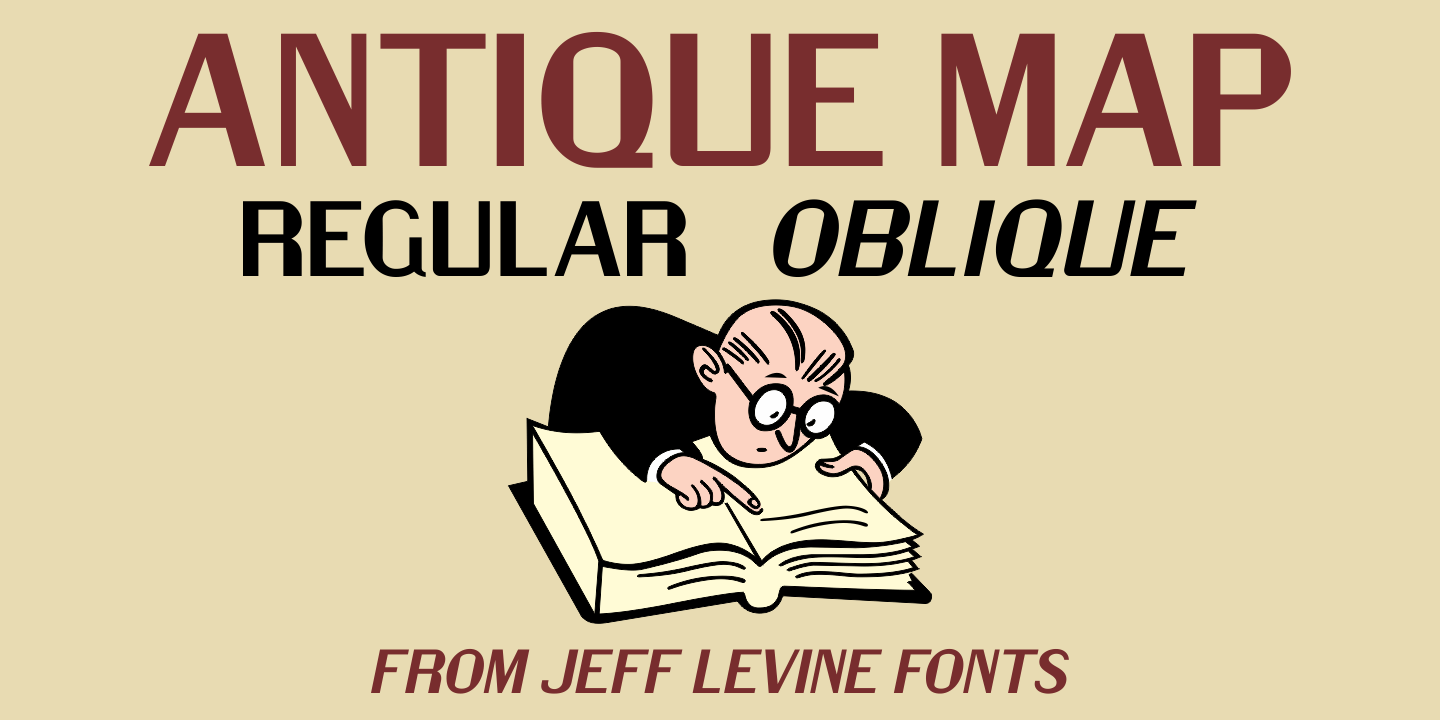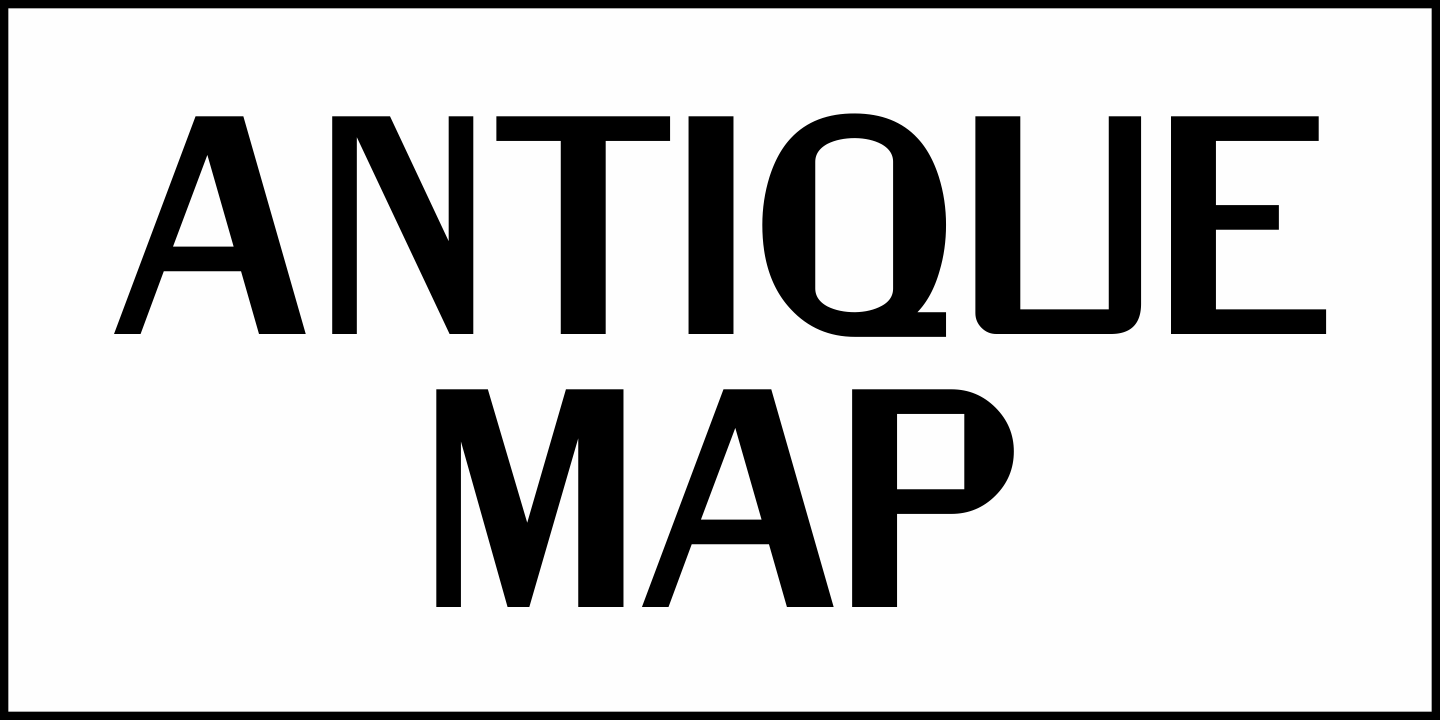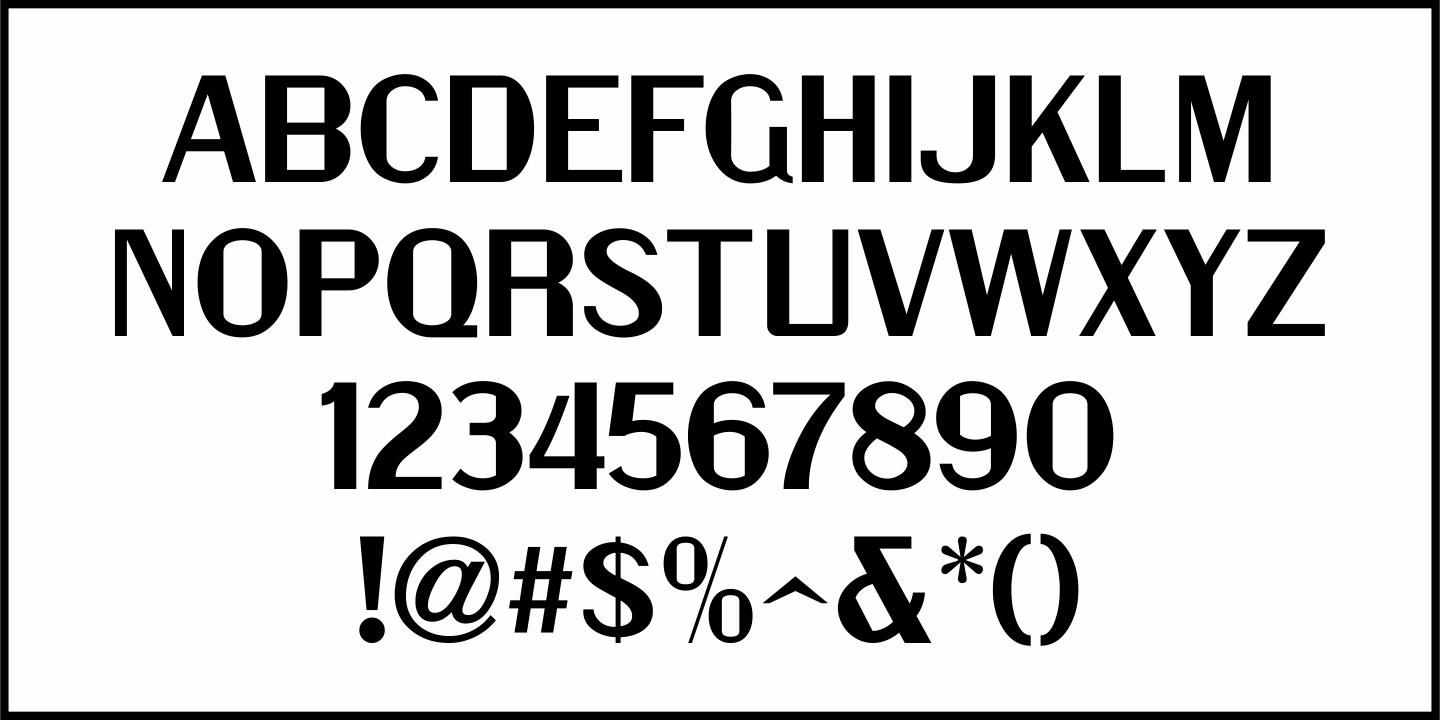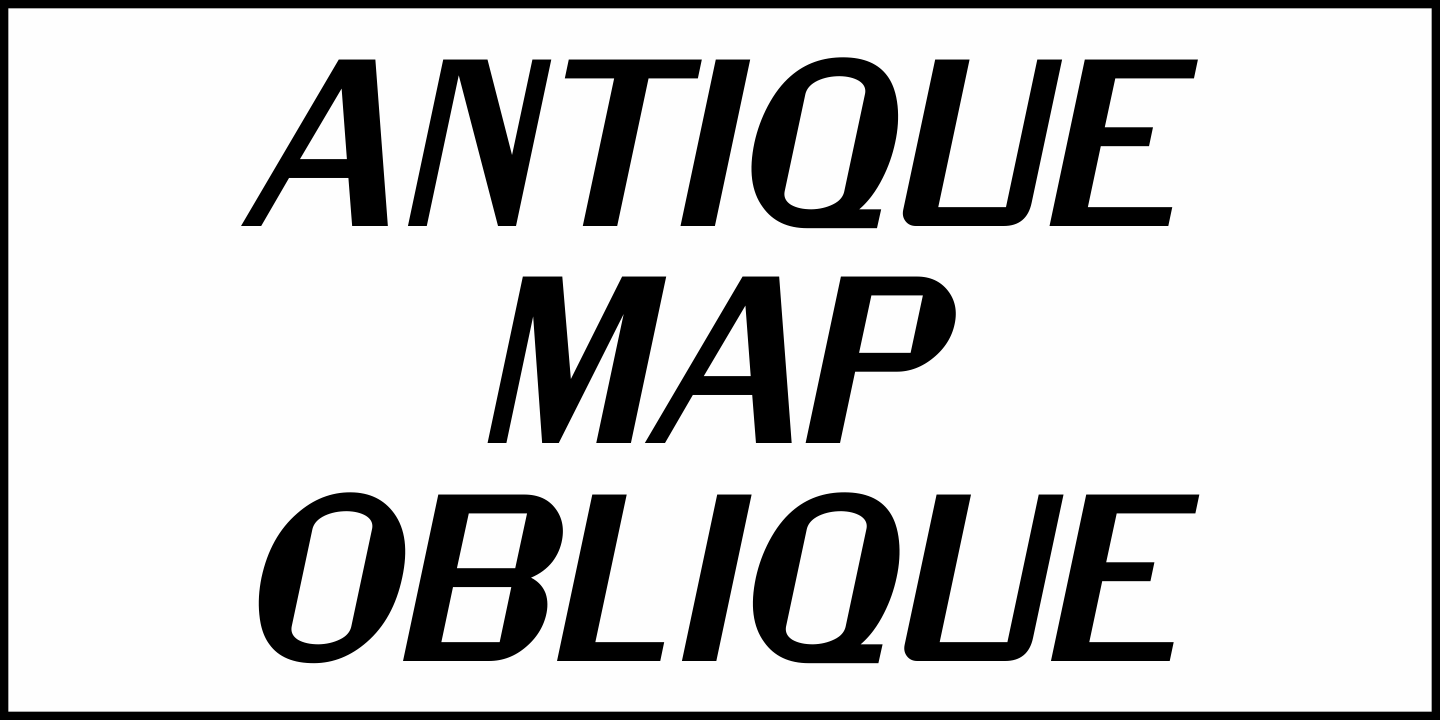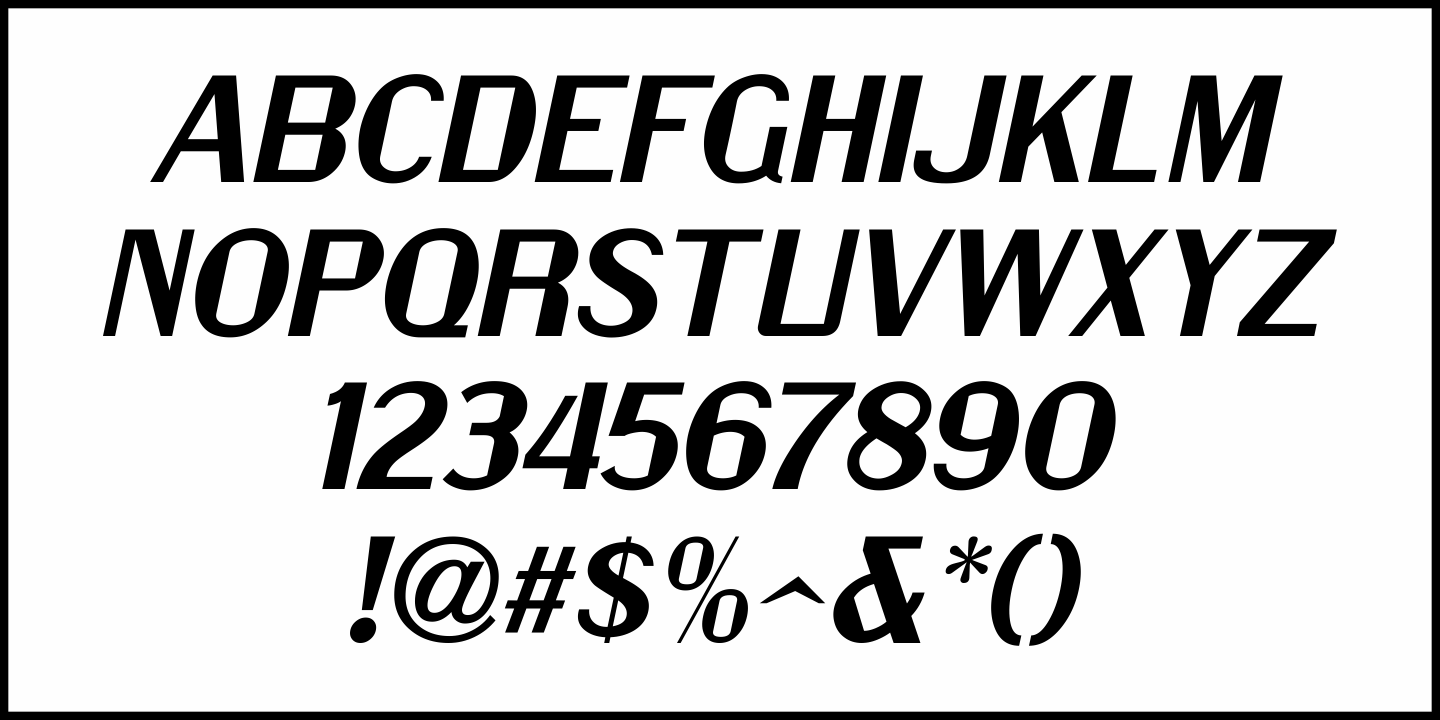
Antique Map
A map of the Lower Dublin Township of Philadelphia, Pennsylania from circa 1849 inspired Antique Map JNL, which is available in both regular and oblique versions. The lettering is of the 'grotesk' style of sans serif typography, which was popular from the 1800s through the early 1900s.
Antique Map by Jeff Levine Fonts